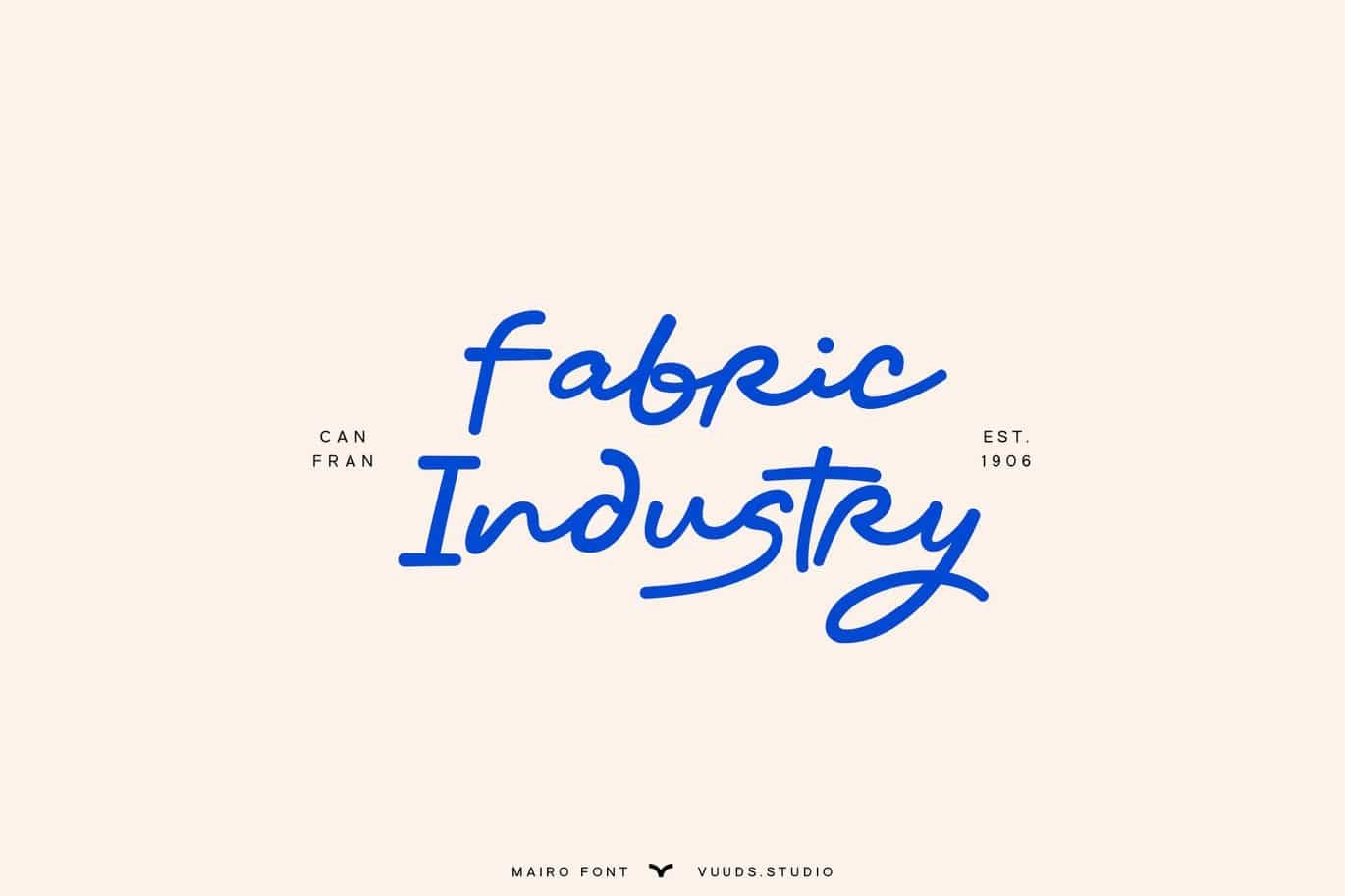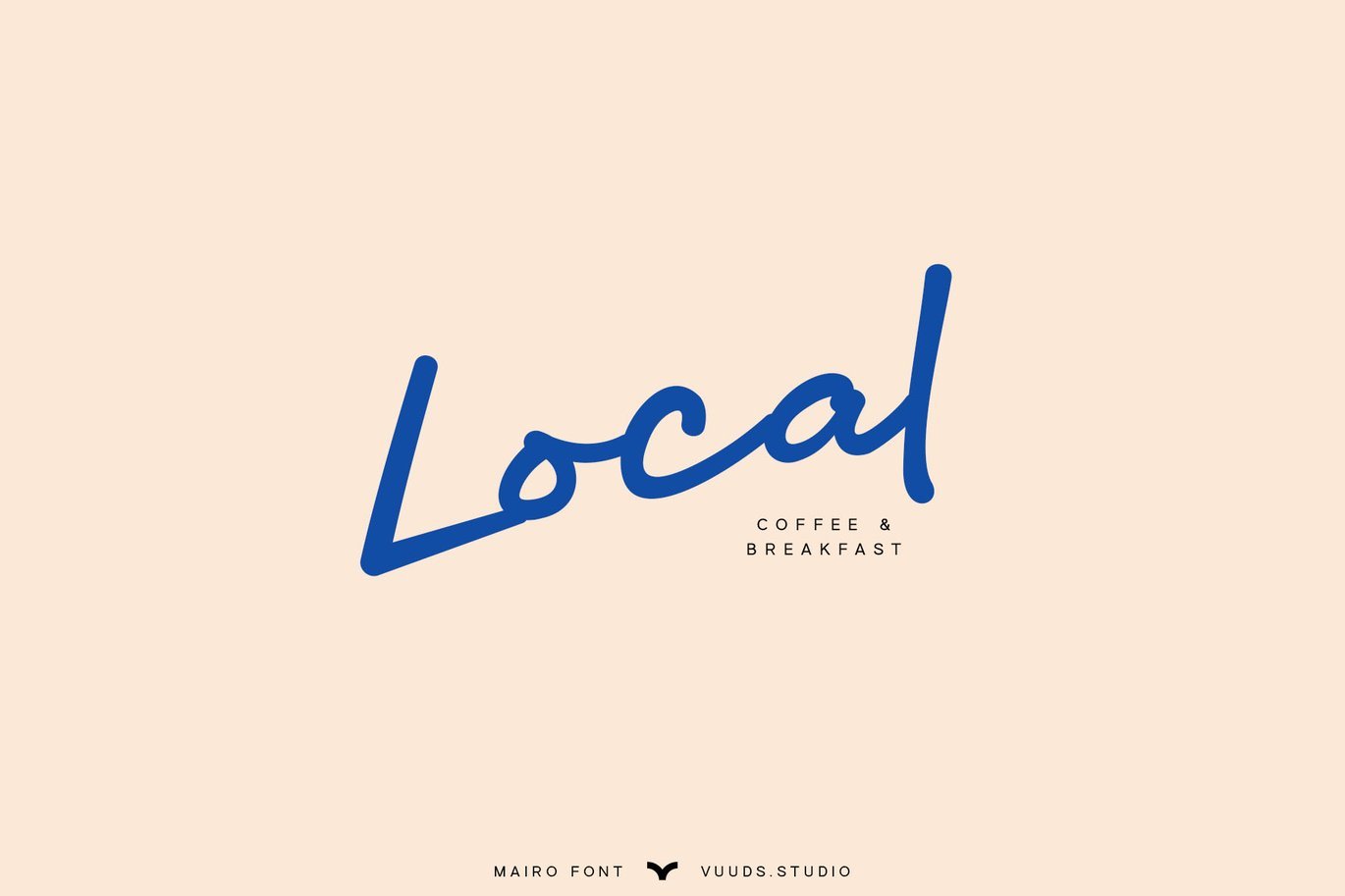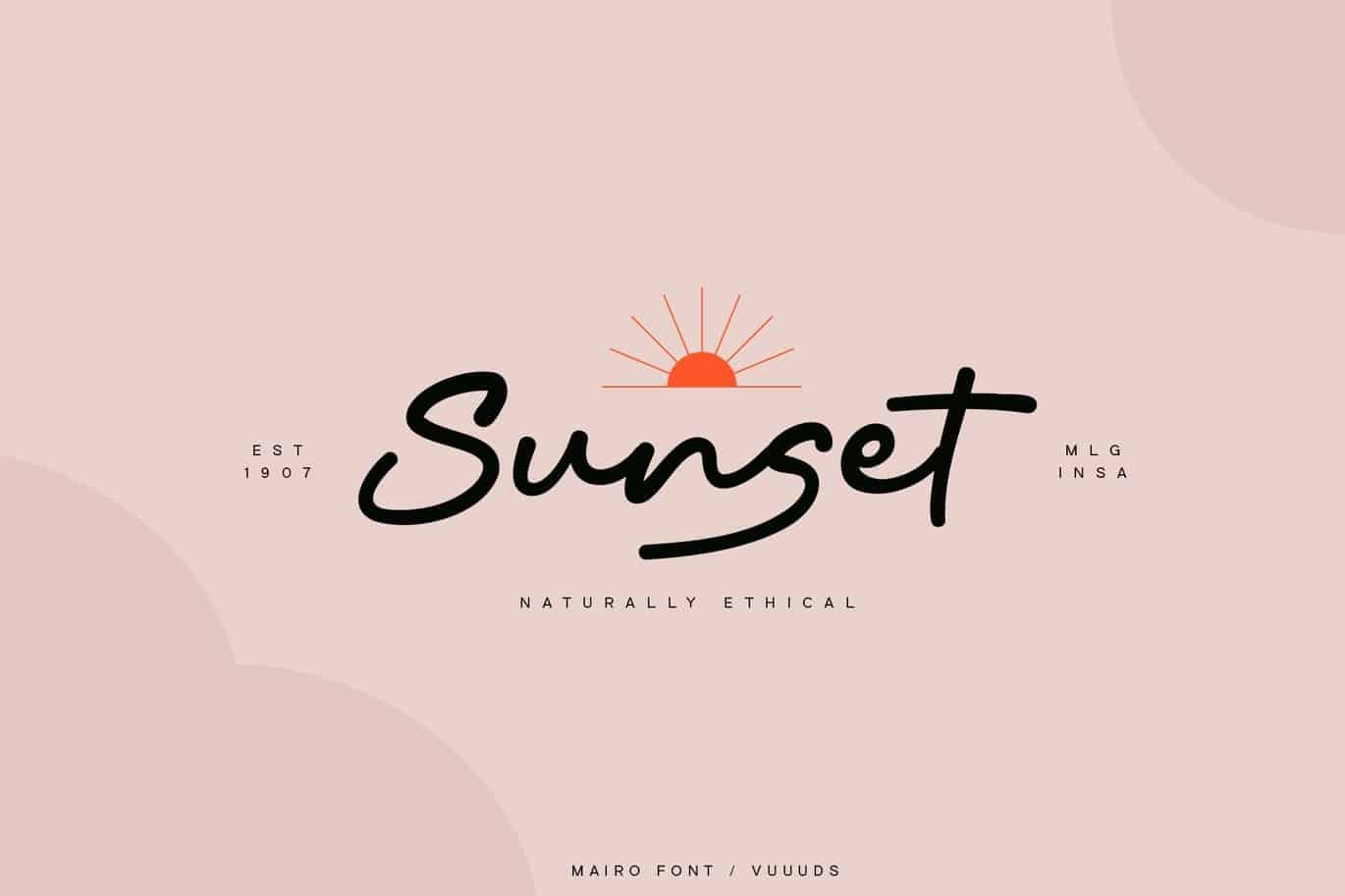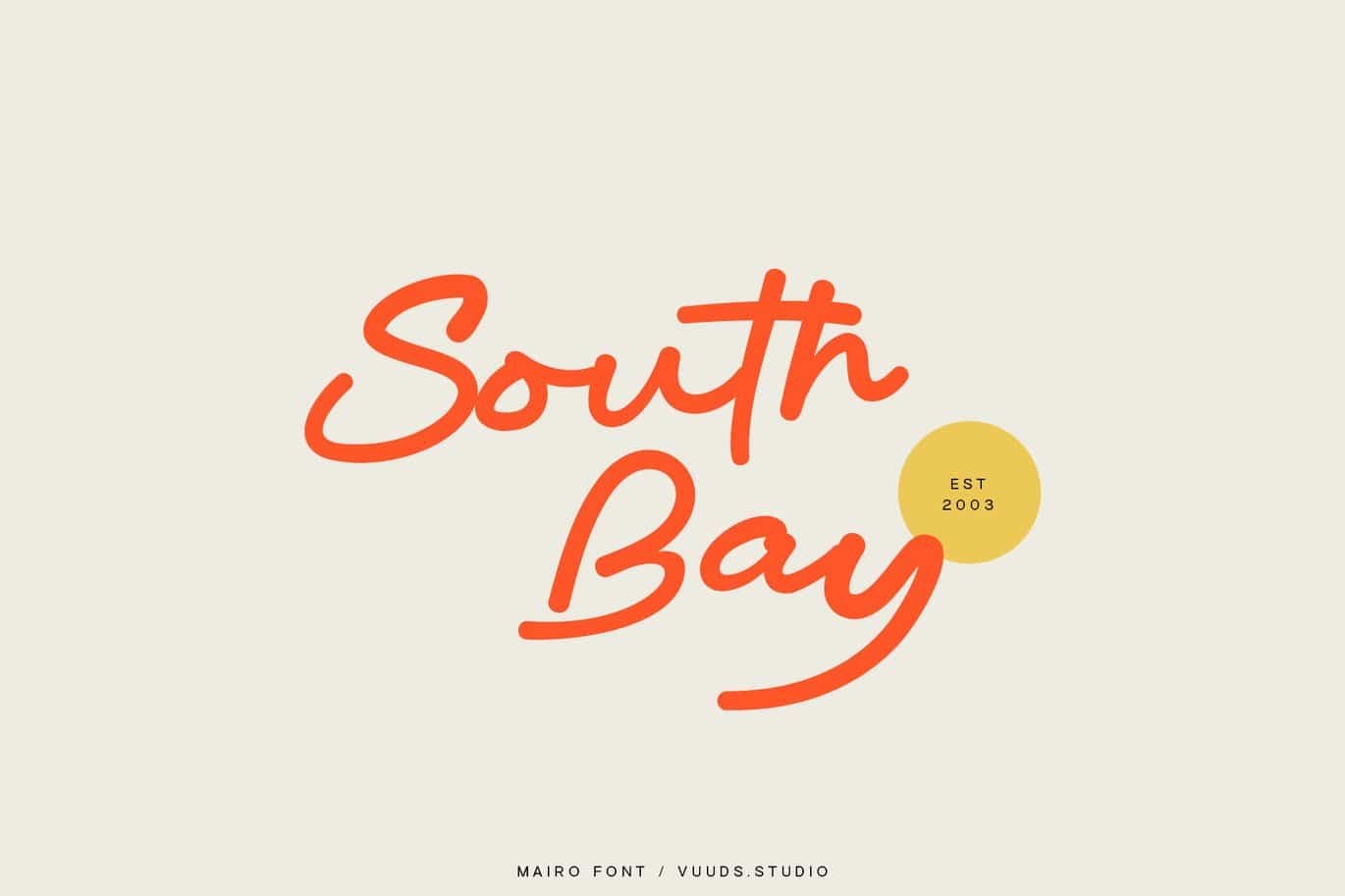
Mairo Font
Introducing Mairo Font!
Mairo is casual script font, every single letters have been uniquely crafted.
Foreign languages support: ÀÁÂÃÄÅÆÇÈÉÊËÌÍÎÏÐÑÒÓÔÕÖØÙÚÛÜÝàáâãäåæçèéêëìíîïðñòóôõöøùúûüýÿ